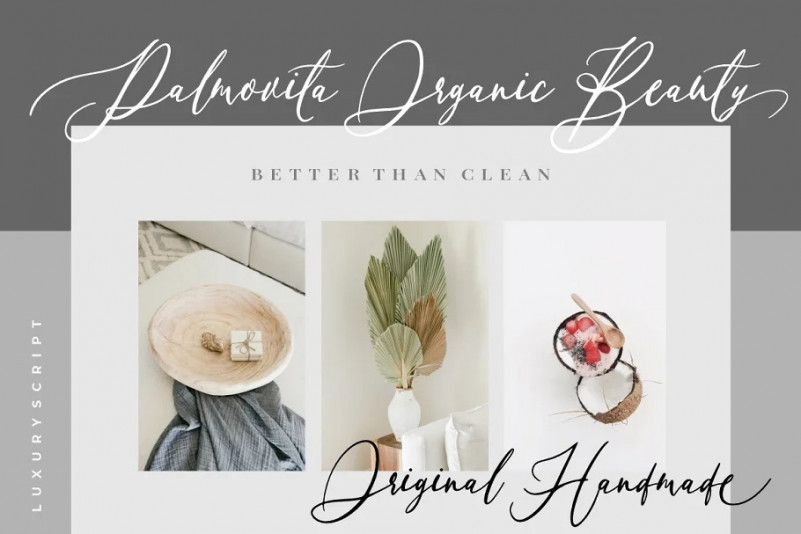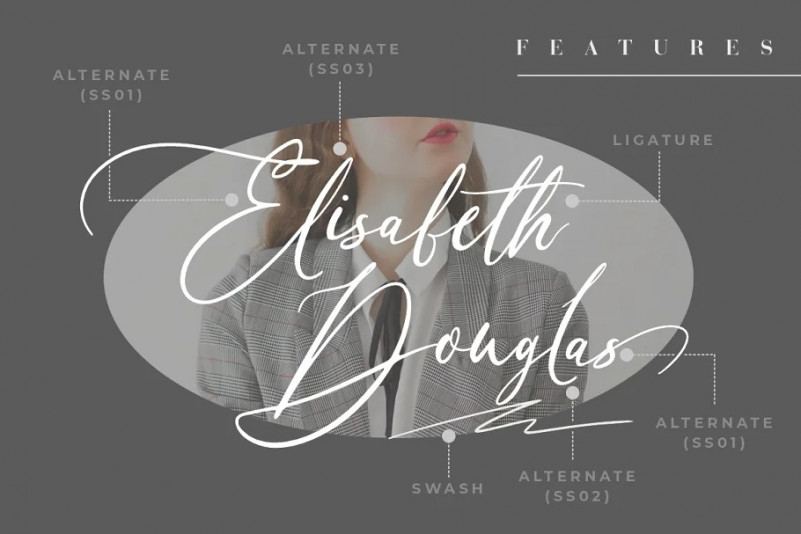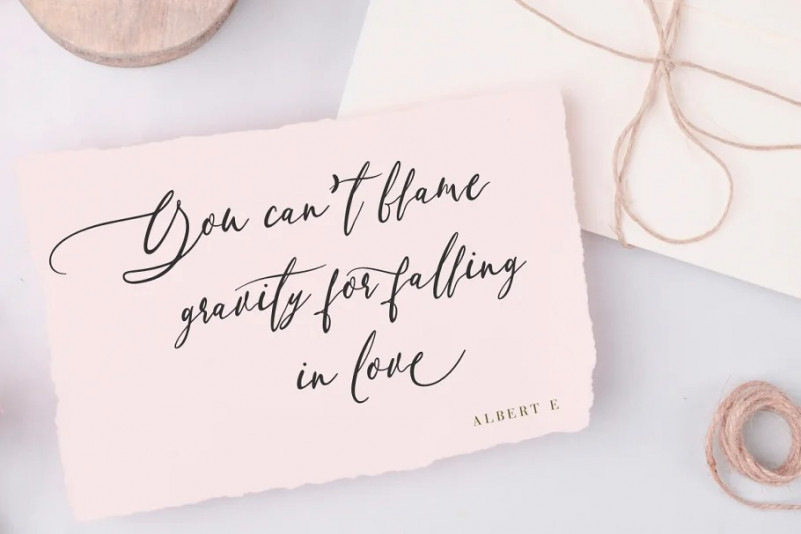
Franchisca Script Font
This script typeface with a handmade calligraphy style, decorative characters and a dancing baseline!
Franchisca is perfect for branding projects, logo, wedding designs, social media posts, advertisements, product packaging, product designs, label, photography, watermark, invitation, stationery and any projects that need handwriting taste.